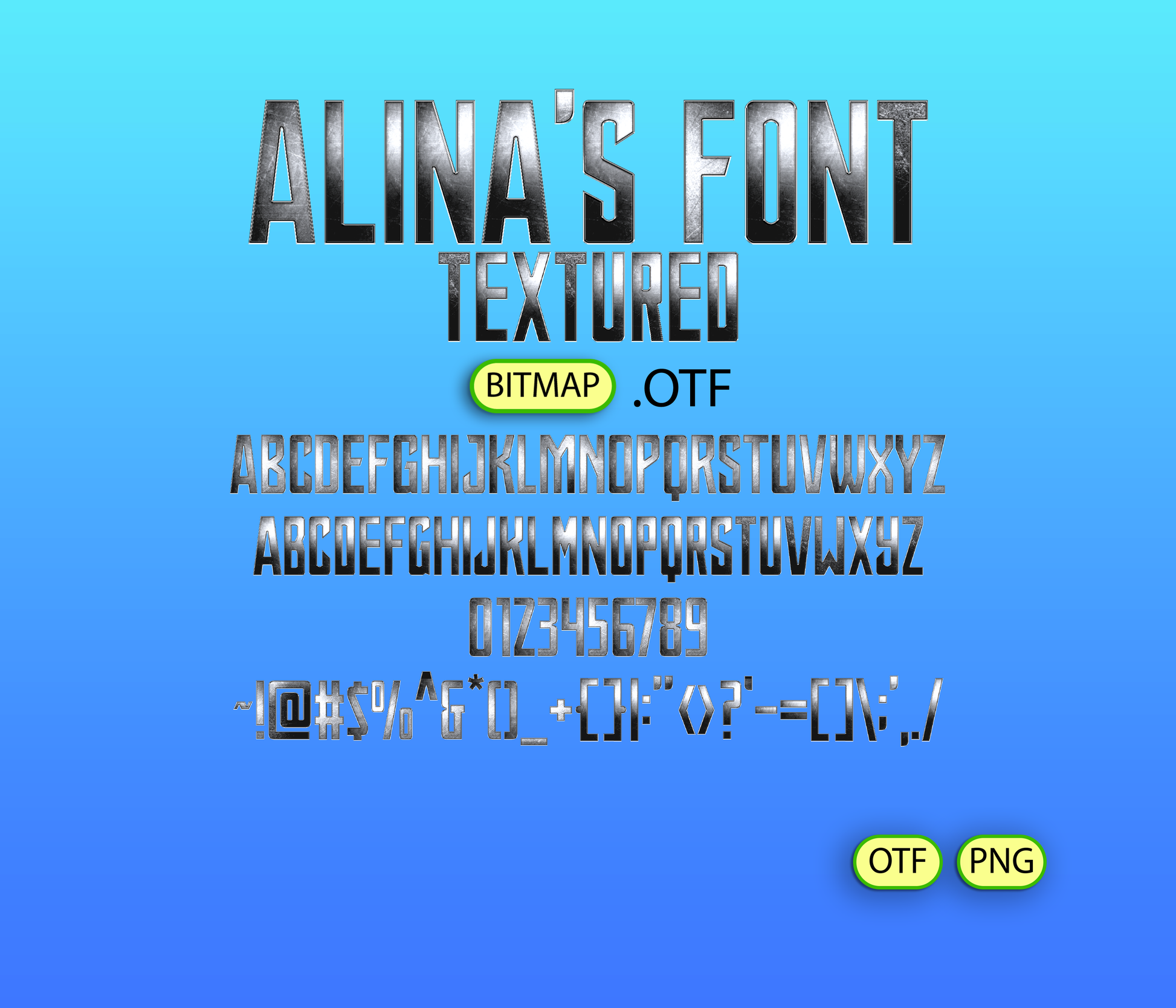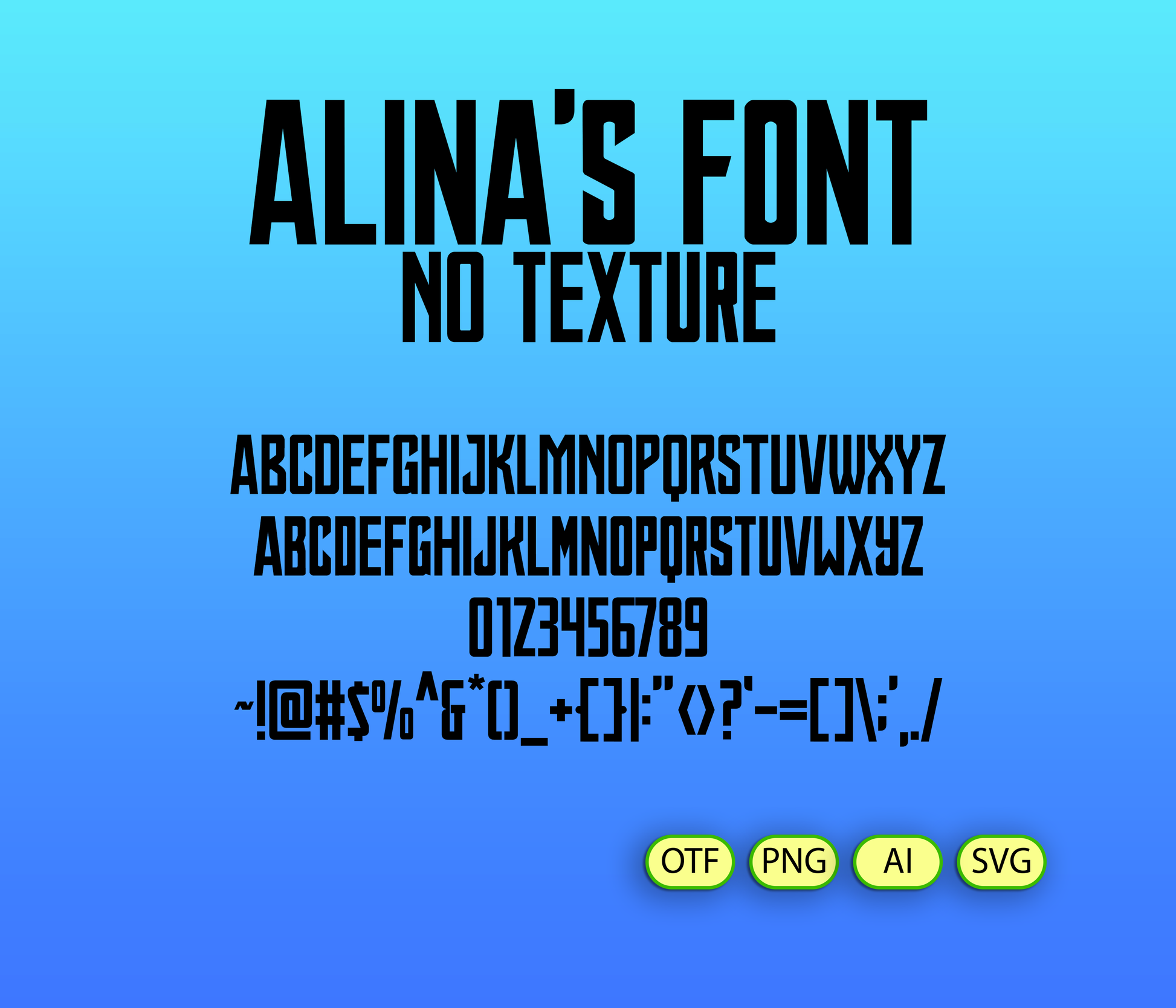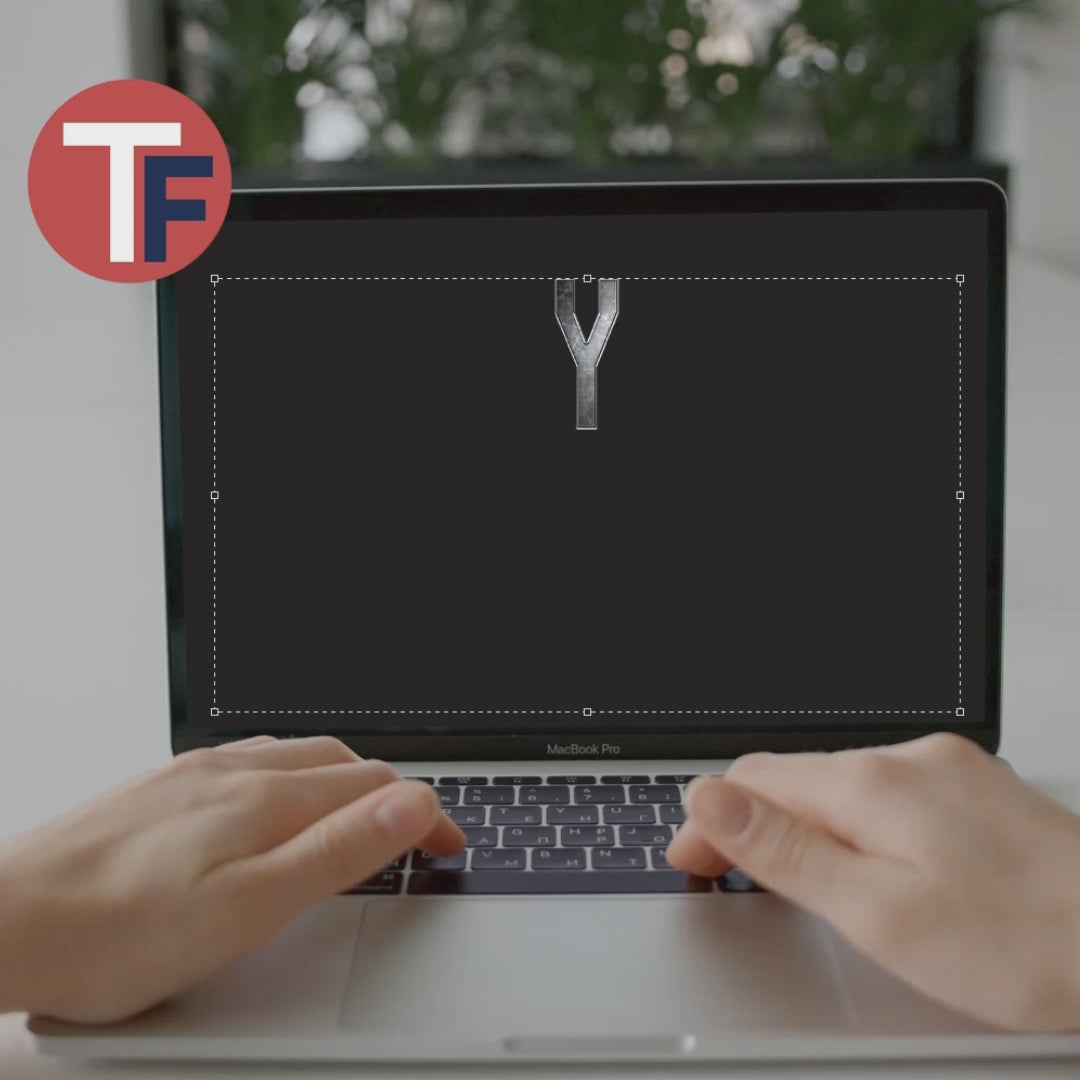
Heroic Team Font Textured
Unleash Heroic Power with the Heroic Team-Inspired Font
Channel the strength and heroism of the iconic Heroic Team with our specially designed font. Perfect for fans, event planners, and designers, this font brings the heroic spirit of the Heroic Team to your projects. Whether you're creating event invitations, designing themed merchandise, or crafting digital content, our Heroic Team font ensures your projects resonate with the inspiring nature of this legendary team.
Our Heroic Team-inspired font features bold lines and dynamic characters reflecting the power of iconic superheroes. Ideal for:
To ensure maximum usability and flexibility, our Heroic Team-inspired font includes both textured and non-textured variants. The non-textured version is particularly beneficial, ensuring compatibility with all types of software, including Canva. This feature allows users of all skill levels to seamlessly incorporate the font into their designs, enhancing accessibility and ease of use across various digital and print platforms.
Many people seek out a Heroic Team Font generator online to mimic the look of the Heroic Team Font. Steer clear! No font generator can match the quality of this Heroic Team Font, which comes in two versatile versions: a textured colored Heroic Team font and a simple Heroic Team font. This is particularly beneficial if you plan to use it with a cutting machine.